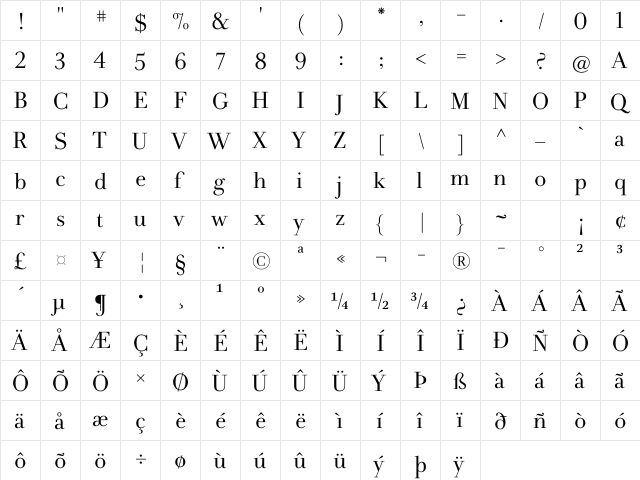
AndradePro Regular
| Foundry | Dino dos santos _DSType |
Design Context for AndradePro Typeface
AndradePro is a composed and adaptable typeface that performs quietly and consistently across a wide range of design contexts.
Pro Tip: Use AndradePro in both headline and body roles to test its range before committing to a single application.